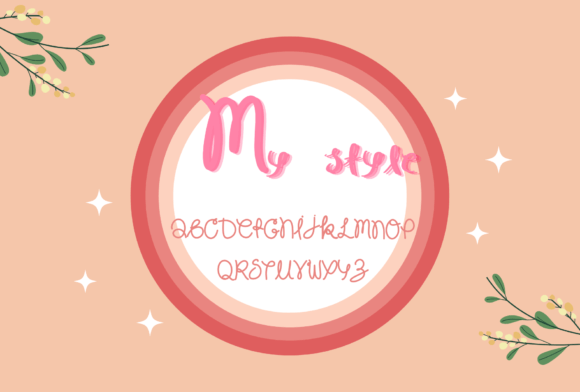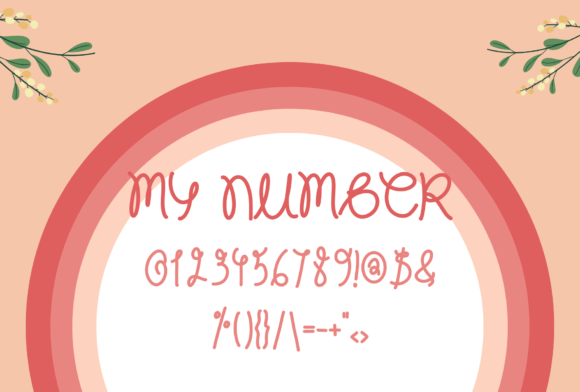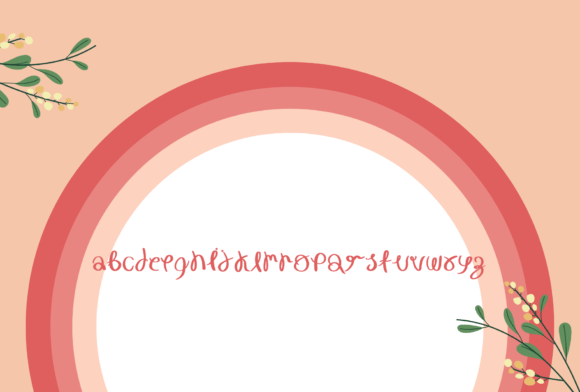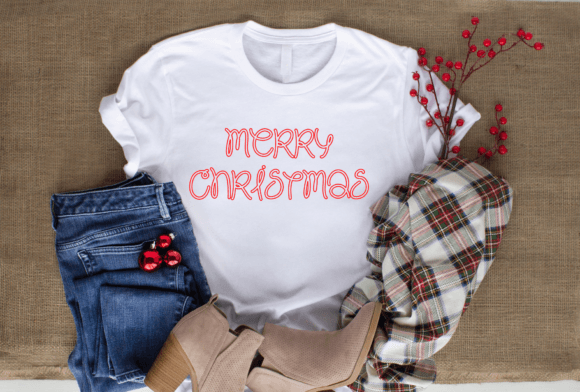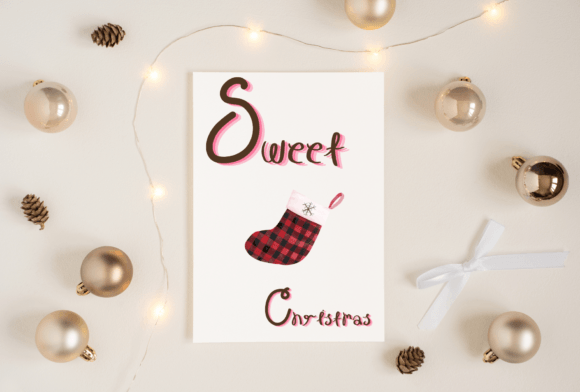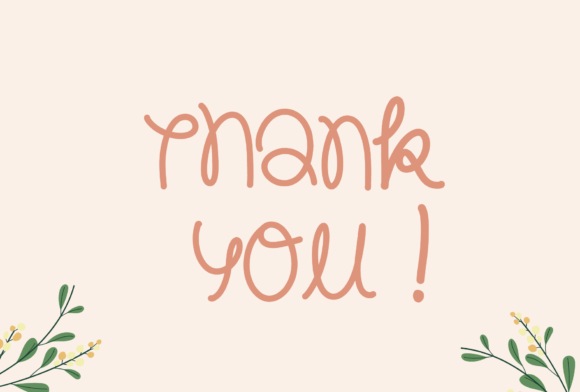
Write Fun Funy Font
About Write Fun Funy Font
The Write Fun Funy font is a quirky and energetic handwritten typeface that brings humor and liveliness to every design. With its playful curves and spontaneous strokes, it adds a lighthearted tone to both digital and print projects. Whether you’re crafting a greeting card or designing a social media post, this font helps your message stand out with personality and charm.
Its handwritten feel gives it a personal edge, making it ideal for anyone who wants their work to feel warm, cheerful, and human.
Fun and Friendly for All Occasions
Write Fun Funy combines a relaxed, informal look with clean structure. The letterforms are playful without being messy, so they stay legible across all sizes and platforms. This balance makes the font perfect for:
In addition, the bold yet rounded shapes help maintain clarity even in dense layouts. Whether you’re going for whimsy or creativity, this font rises to the occasion.
Designed to Make You Smile
Every letter in the Write Fun Funy font is designed with personality. The uneven baselines and varying angles create a sense of movement and spontaneity. These imperfections are intentional—they give your text a charming, handcrafted look that feels genuine and expressive.
This font is not only fun to look at, but also fun to use. It gives designers and creatives the freedom to break away from rigid, uniform typefaces and bring in a bit of flair.
Add Whimsy and Joy to Your Designs
If your goal is to make your audience smile, the Write Fun Funy font is exactly what you need. It’s expressive, engaging, and endlessly fun to work with. Whether you’re designing for kids, crafts, or cheerful branding, this font gives you the voice to be playful and original.